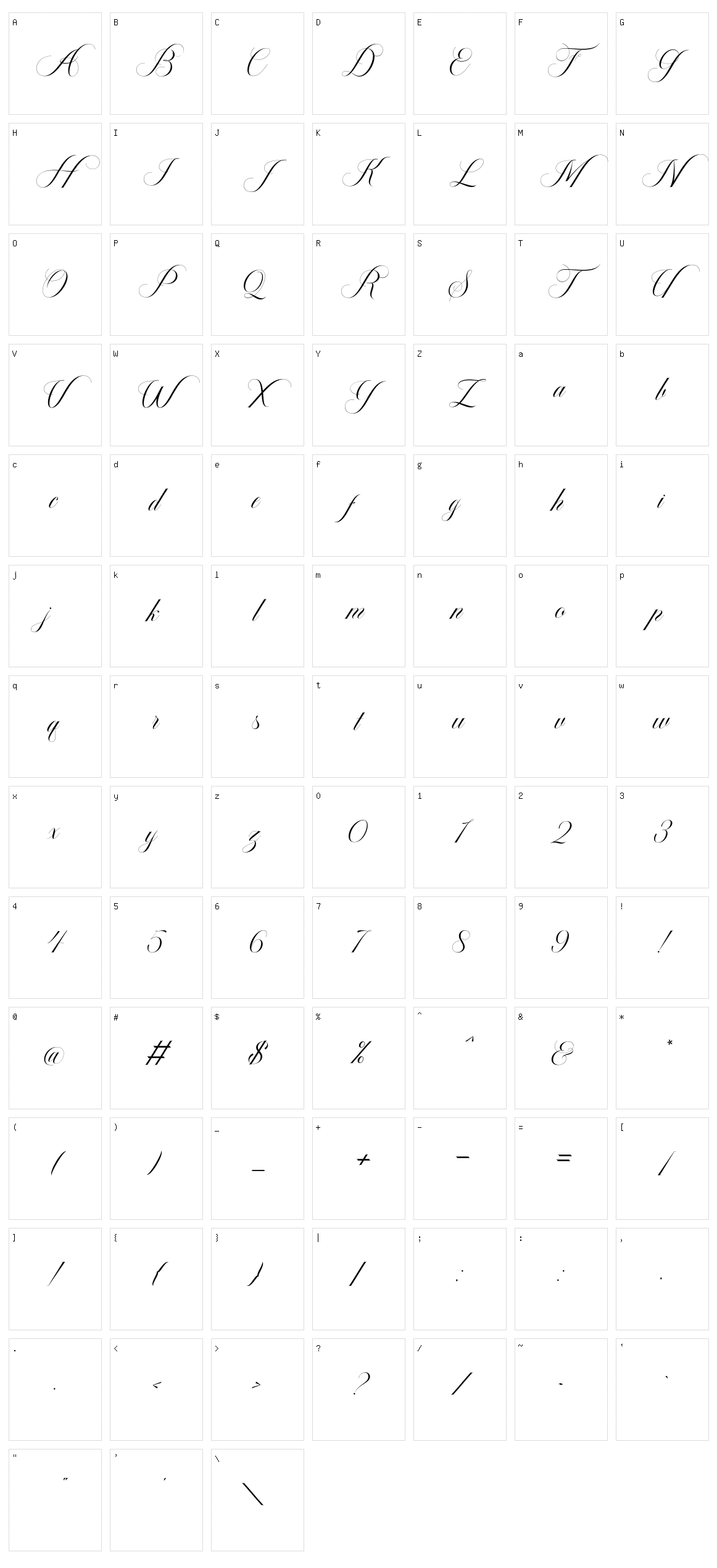
The free font The Dellgado is carefully designed by Pista Mova, showcasing a thoughtful balance of creativity and usability and falls under the Script font style. When you download the ZIP file, it contains only 66.87 KB of font files, making it lightweight and quick to download. Please review the license details below to understand permitted usage and distribution rights. If license information is not available, we recommend using this font for personal projects only or contacting the author directly for commercial usage permissions.